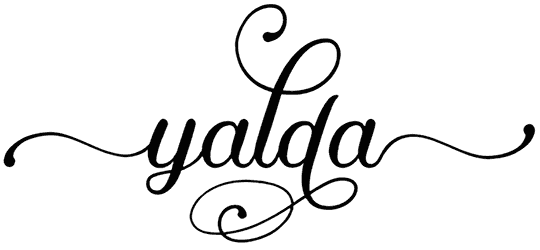
Yaldã Font
Yalda Font
Yaldã font is another traditional calligraphy font that is cursive and skillful to read and write. Thanks to its luxury look, it is ideal for invitations, greeting cards, cosmetics, decoration, and so on. Although it is illegible, it cannot be ignored; this script font will raise your content with its peach.